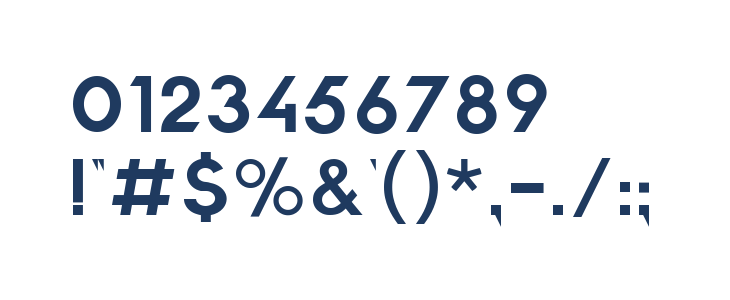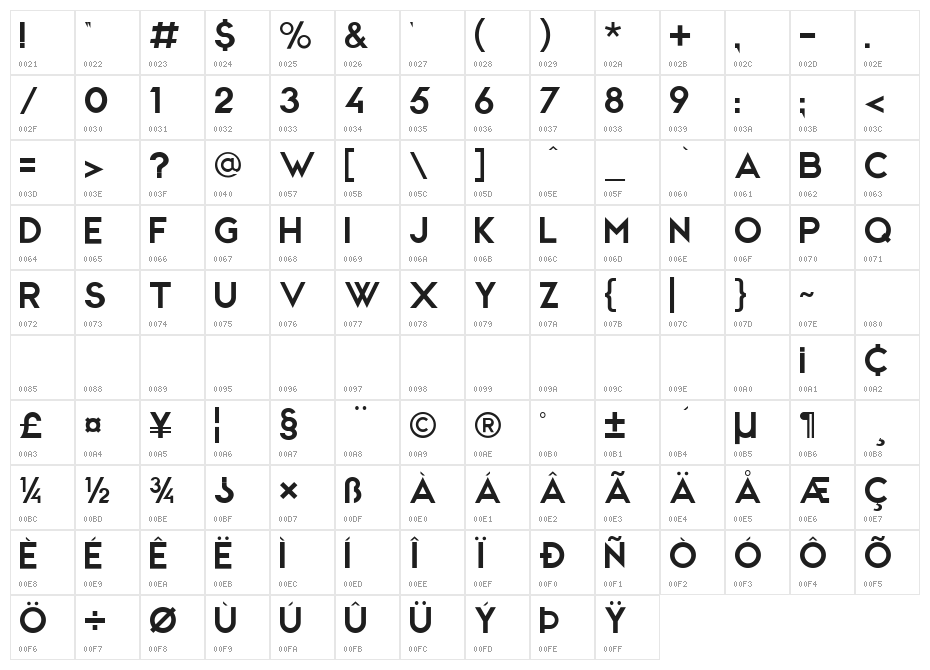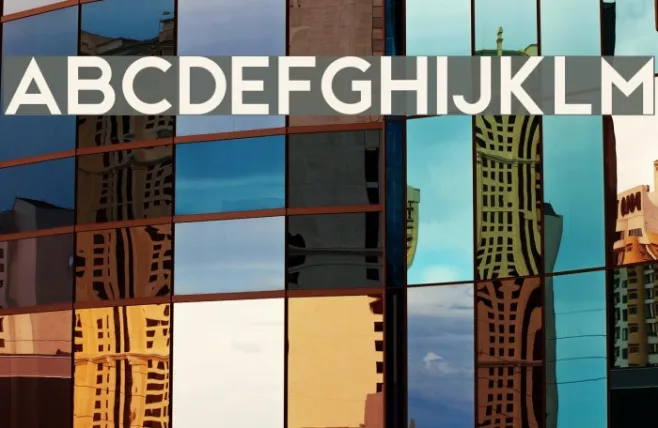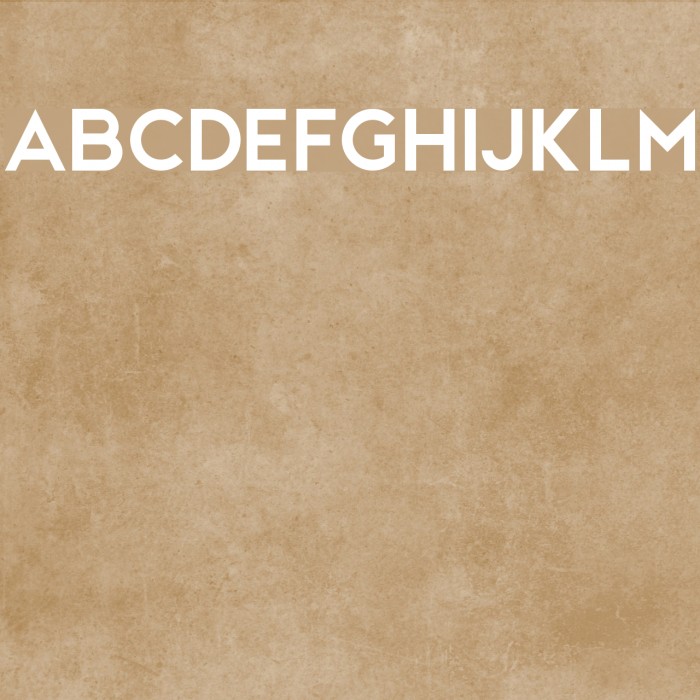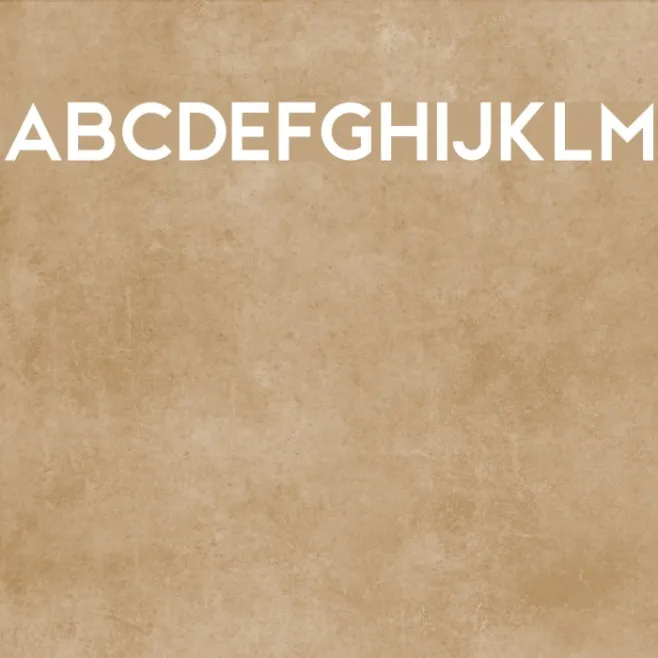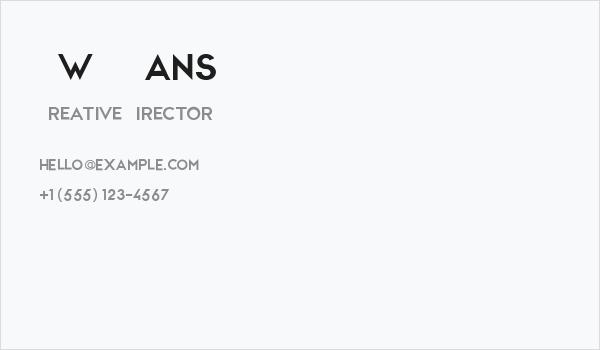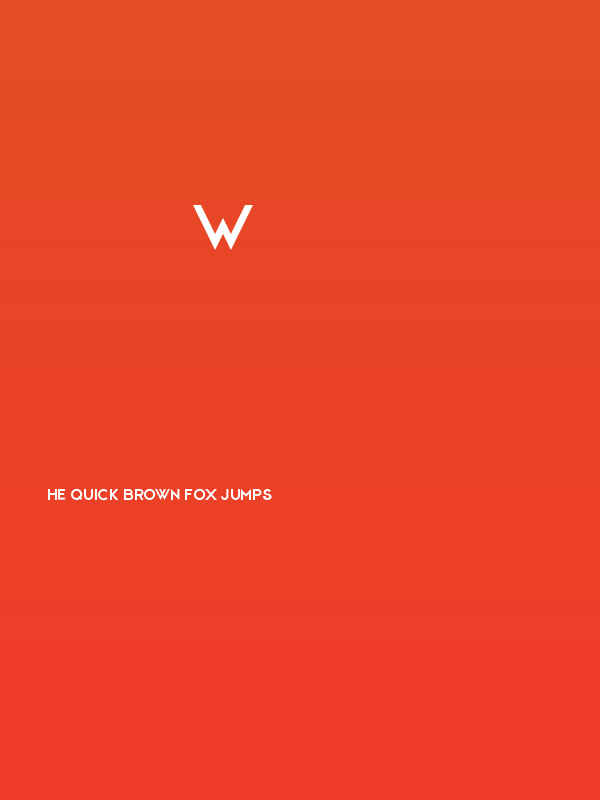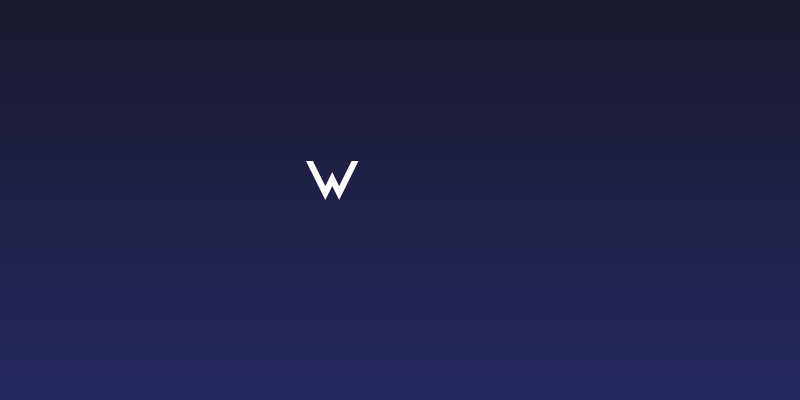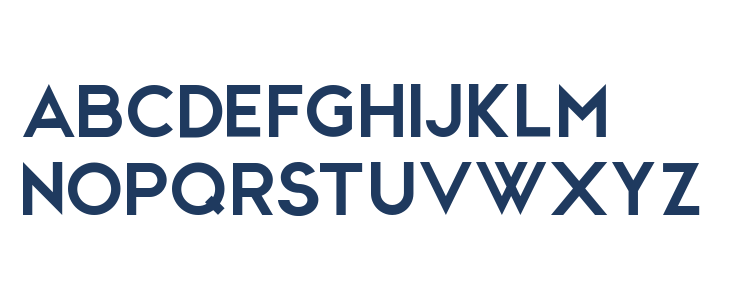
CWG Sans Font
CWG Sans Description
This typeface features a clean and modern sans-serif design, characterized by its geometric shapes and uniform stroke widths. The letters are bold and well-defined, offering excellent readability. The uppercase letters are particularly striking, with a consistent height and width that create a balanced appearance. The numerals are clear and distinct, making them suitable for various applications. Special characters are included, maintaining the same bold and modern aesthetic. Overall, this font exudes a contemporary and professional feel, making it versatile for numerous design projects.
| Use Case | Headlines, Logos, Advertising |
| Proposed Projects | Ideal for branding, advertising, web design, and editorial layouts. |